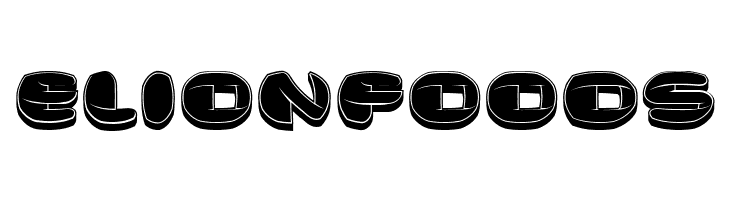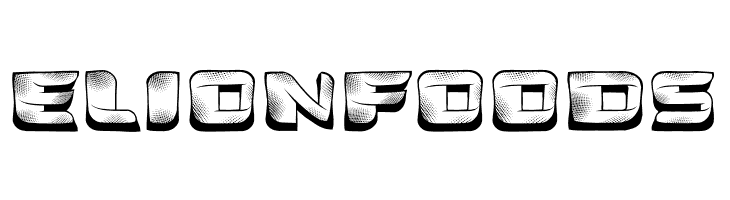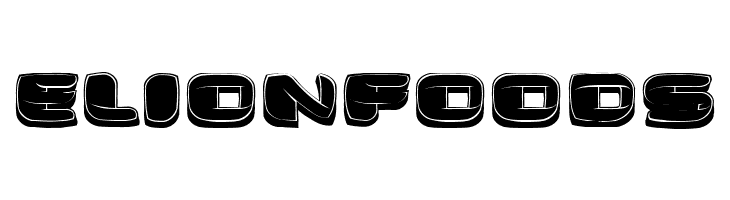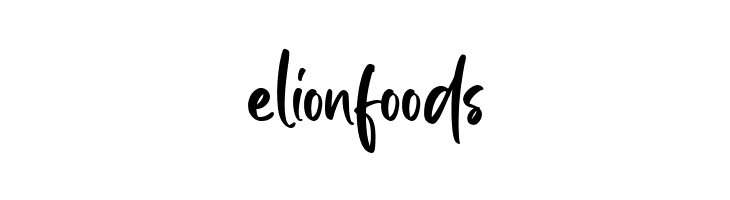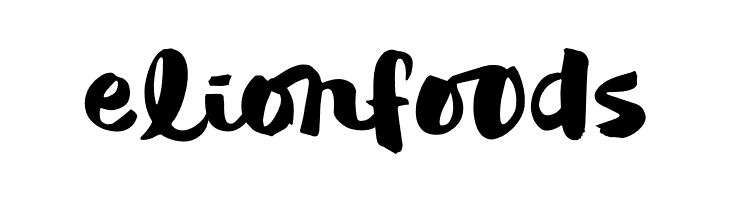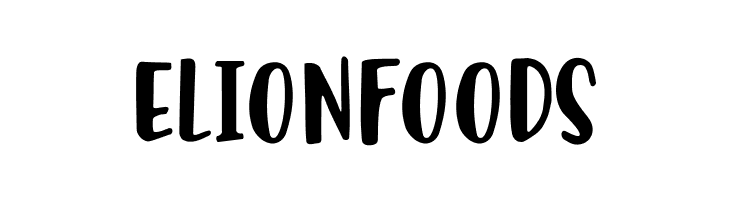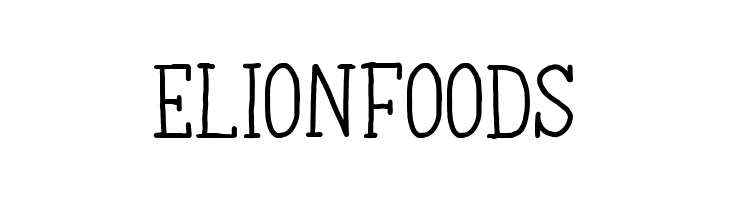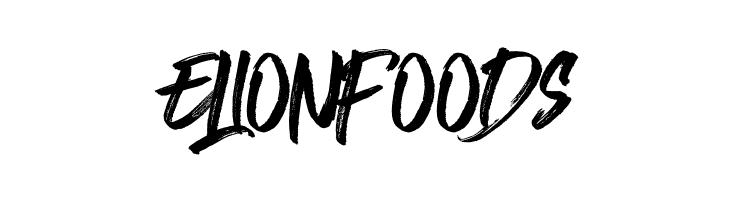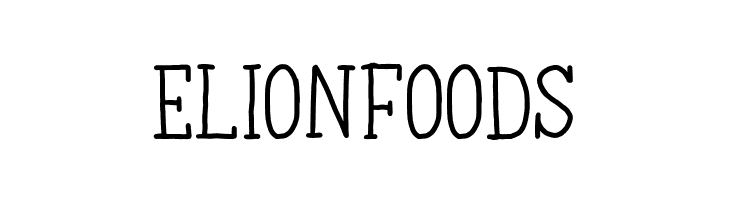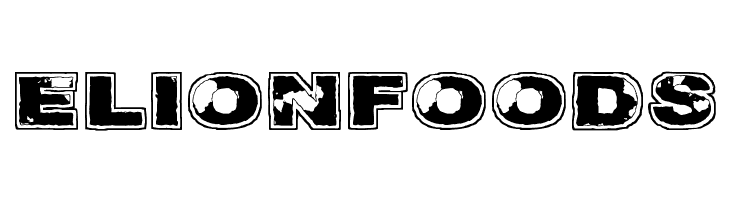
A bold, brush-style font with dynamic, hand-painted strokes.
A bold, playful handwritten font with thick strokes and dynamic flow.
A bold, expressive handwritten font with brush-like strokes and a lively appearance.
A bold, distressed font with a rugged, vintage appearance.
A bold, handwritten-style font with brush-like strokes and a playful vibe.
A playful, hand-drawn font with a whimsical and casual style.
A playful, hand-drawn font with tall, narrow characters and a whimsical style.
A bold, futuristic font with a three-dimensional, filled design.
A bold, three-dimensional font with an engraved, vintage appearance.
A bold, filled font with a modern, playful aesthetic and thick outlines.